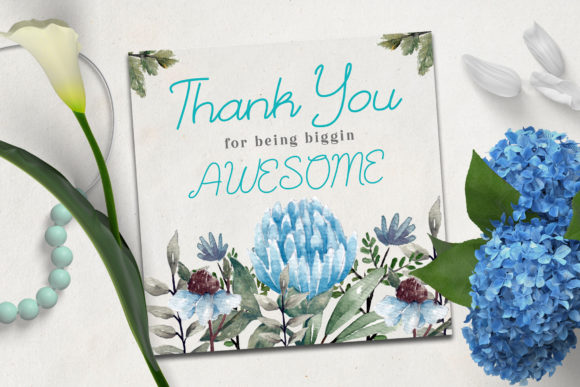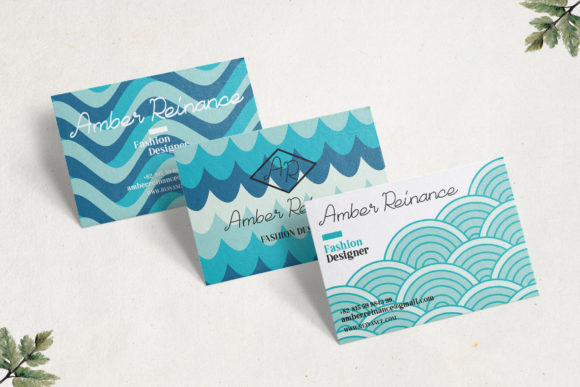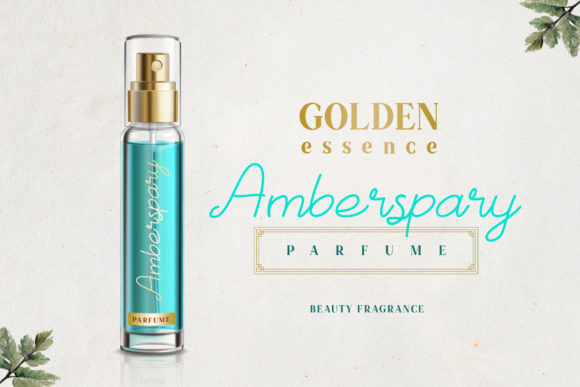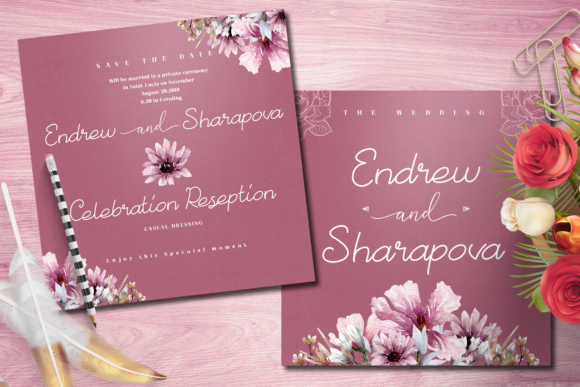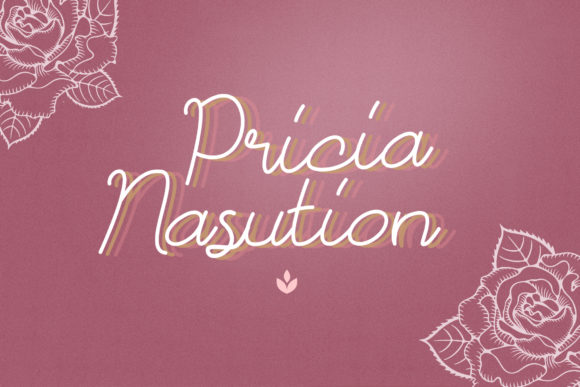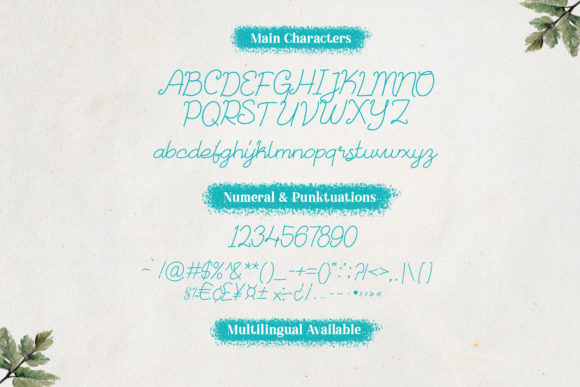
Discover the Timeless Charm of Ancient Flower Font
Are you a designer or crafter looking for a unique and captivating font to elevate your design projects? Look no further than Ancient Flower, a stunning and charming script font that’s perfect for turning any design into an authentic piece of art. In this article, we’ll explore the features, benefits, and uses of Ancient Flower Font, and why it’s a must-have for any creative professional.
What is Ancient Flower Font?
Ancient Flower is a beautiful script font that’s inspired by traditional calligraphy and ancient floral patterns. Its elegant and flowing lines evoke a sense of nostalgia and romance, making it perfect for designs that require a touch of sophistication and whimsy. With its intricate details and ornate flourishes, Ancient Flower Font is sure to add a touch of magic to any design project.
Key Features of Ancient Flower Font
- Unique and intricate design: Ancient Flower Font features a distinctive and ornate design that’s unlike any other font. Its intricate details and flourishes make it perfect for designs that require a high level of elegance and sophistication.
- Script and print compatibility: Ancient Flower Font is a versatile font that works well in both script and print formats. Whether you’re designing a wedding invitation, a logo, or a packaging label, Ancient Flower Font is the perfect choice.
- Multilingual support: Ancient Flower Font supports multiple languages, making it a great choice for designers who work with international clients or create designs for global audiences.
Benefits of Using Ancient Flower Font
So why choose Ancient Flower Font for your design projects? Here are just a few benefits of using this stunning font:
- Adds elegance and sophistication: Ancient Flower Font adds a touch of elegance and sophistication to any design project. Its intricate details and ornate flourishes make it perfect for designs that require a high level of refinement.
- Creates a unique and distinctive look: Ancient Flower Font is a one-of-a-kind font that’s sure to make your designs stand out from the crowd. Its unique and intricate design ensures that your designs will be memorable and eye-catching.
- Perfect for creative projects: Ancient Flower Font is perfect for designers, crafters, and artists who want to add a touch of whimsy and romance to their projects. Whether you’re creating a wedding invitation, a logo, or a piece of art, Ancient Flower Font is the perfect choice.
Uses of Ancient Flower Font
Ancient Flower Font is a versatile font that can be used in a variety of design projects, including:
- Wedding invitations and stationery: Ancient Flower Font is perfect for wedding invitations, save-the-date cards, and other stationery designs that require a touch of elegance and sophistication.
- Logos and branding: Ancient Flower Font is a great choice for logos and branding designs that require a unique and distinctive look.
- Packaging labels and tags: Ancient Flower Font is perfect for packaging labels and tags that require a touch of whimsy and romance.
- Art and illustration: Ancient Flower Font is a great choice for artists and illustrators who want to add a touch of elegance and sophistication to their work.
In conclusion, Ancient Flower Font is a stunning and charming script font that’s perfect for designers and crafters who want to add a touch of elegance and sophistication to their design projects. With its unique and intricate design, script and print compatibility, and ease of use, Ancient Flower Font is a must-have for any creative professional. Whether you’re designing a wedding invitation, a logo, or a piece of art, Ancient Flower Font is the perfect choice.